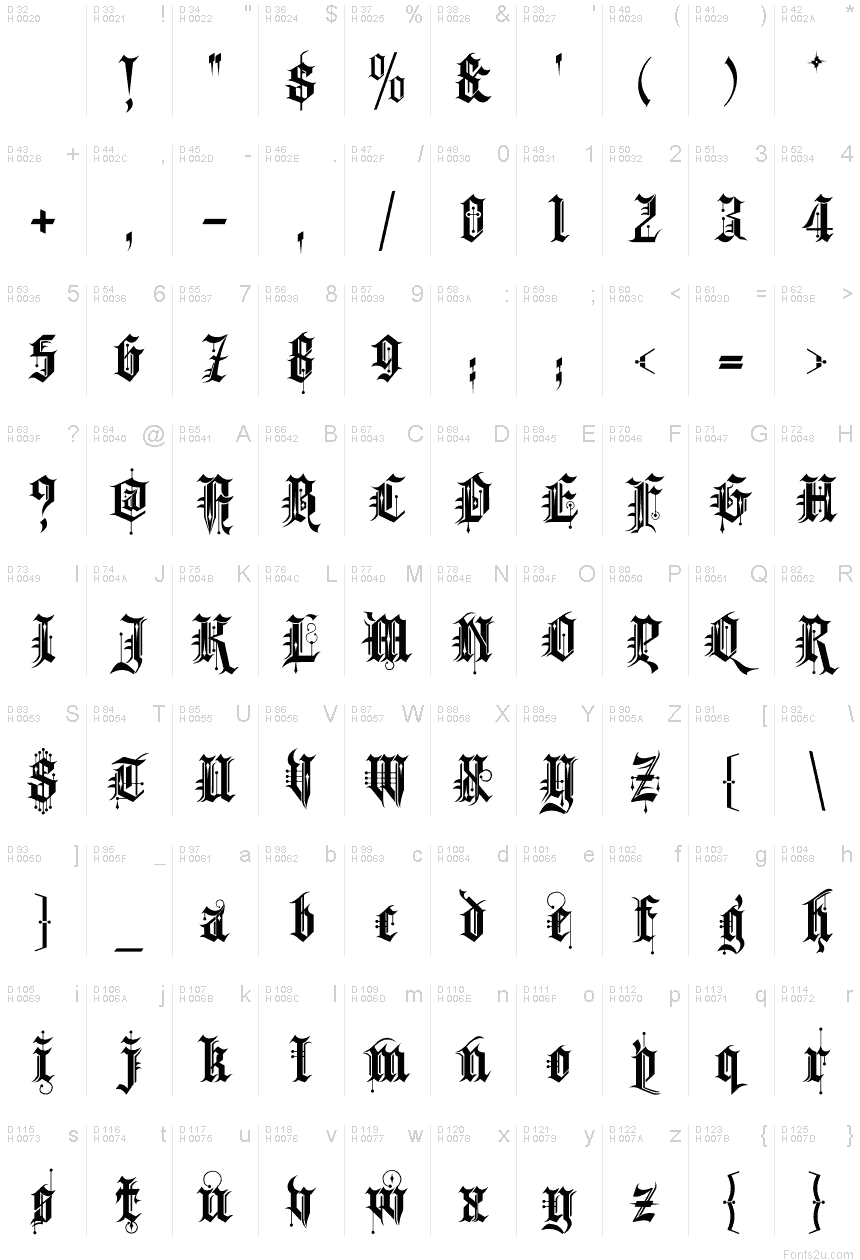
Kingthings Spike
Kingthings Spike font by Kingthings is a free gothic medieval typeface that looks like it’s been carved from iron and splashed with inky ornament. Dense black shapes lock together in tall, narrow columns while delicate dots and spikes drip from the forms, giving it a ritual, almost arcane feel. The sharp angles and dramatic flourishes create a heavy, atmospheric texture that pulls the eye in and doesn’t let go.
Using Kingthings Spike, your titles instantly feel like they belong to a dark fantasy saga or a secret order. This free font shines on band logos, game titles, medieval fair posters, tattoo flash sheets, escape room branding, and fantasy book or zine covers. Set it large so the intricate details can breathe, and pair it with a clean sans serif for body text to keep your layouts readable and striking.